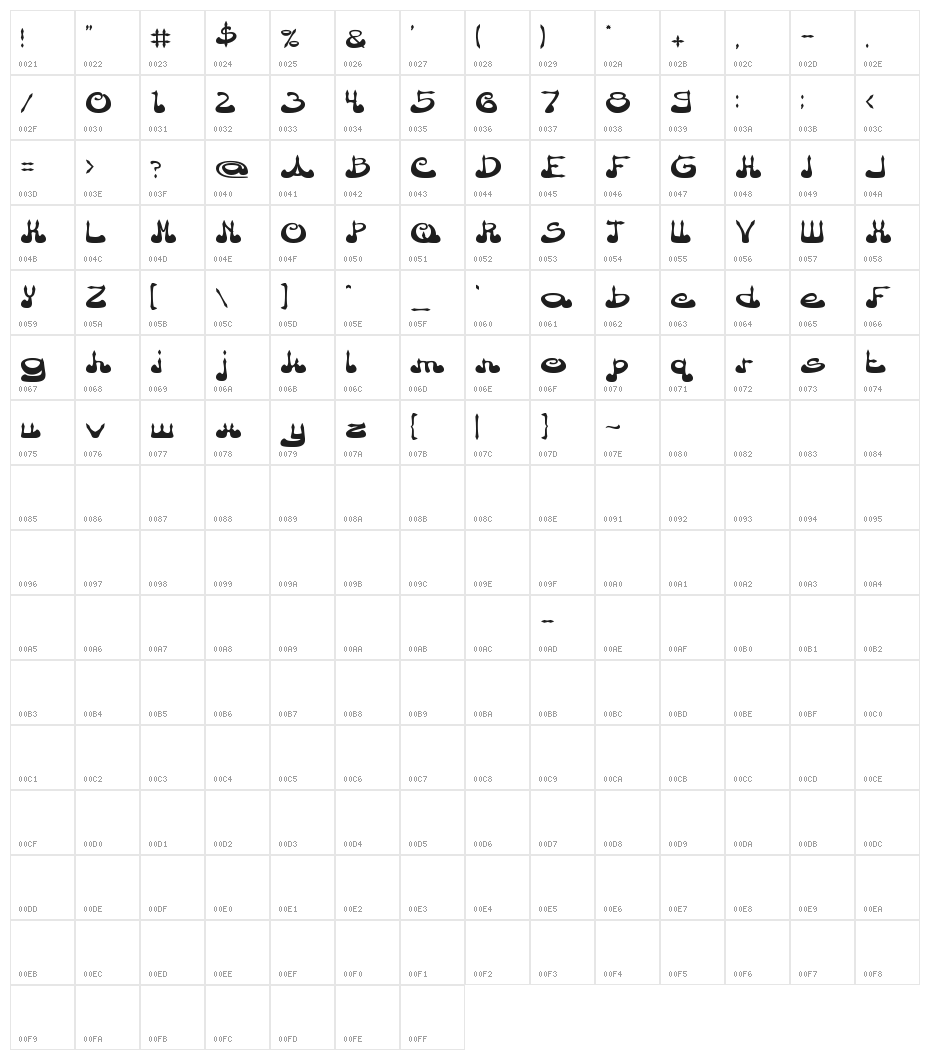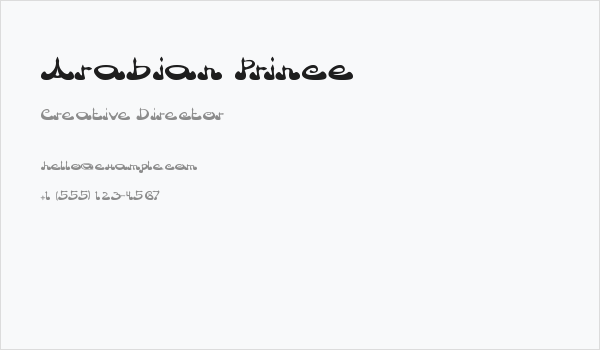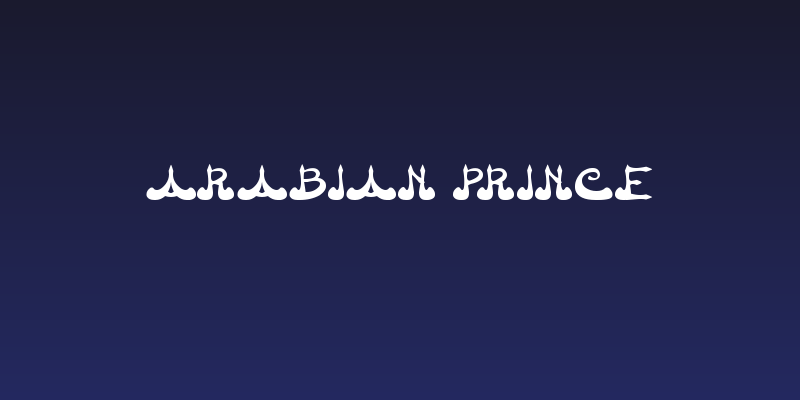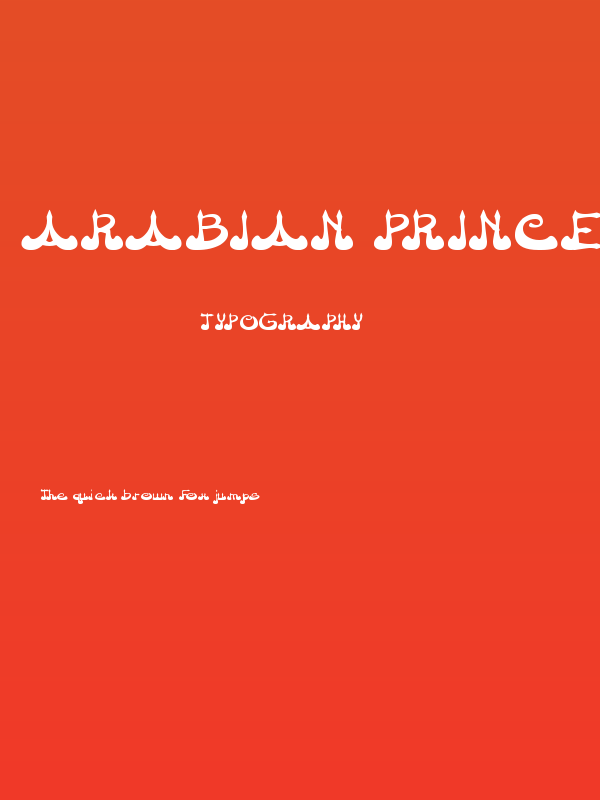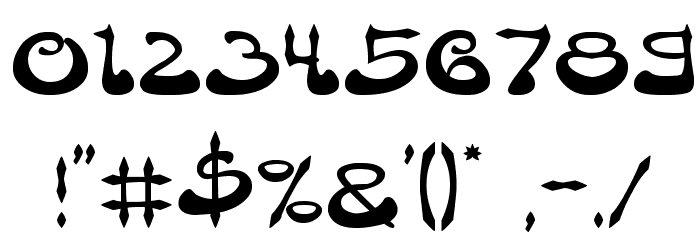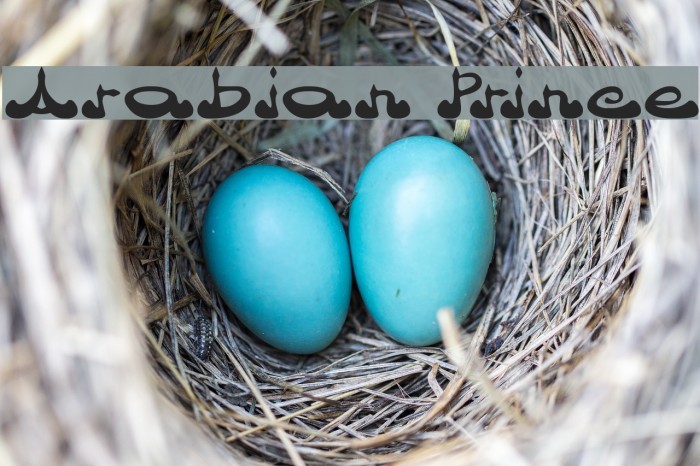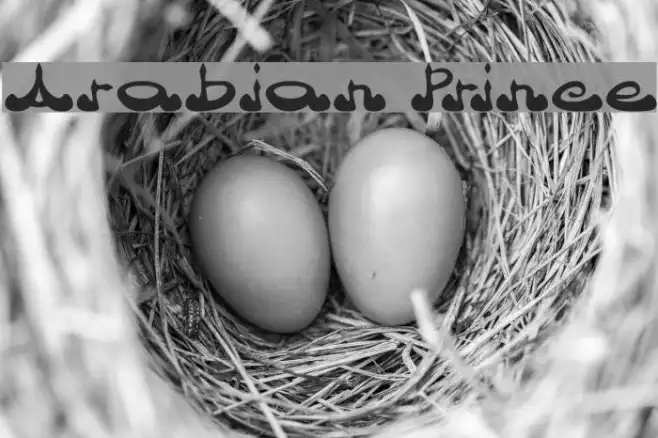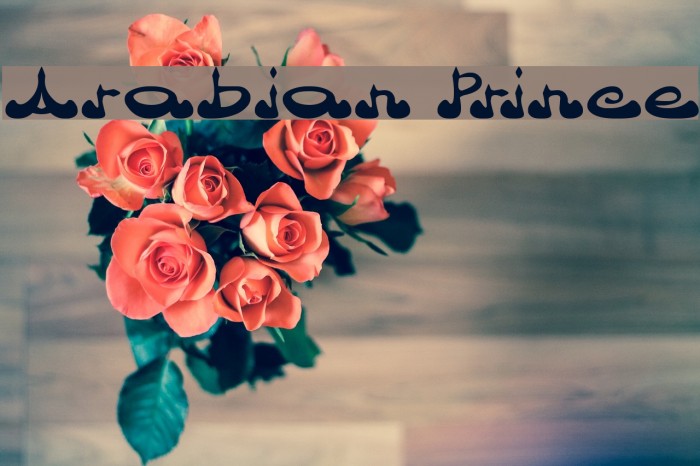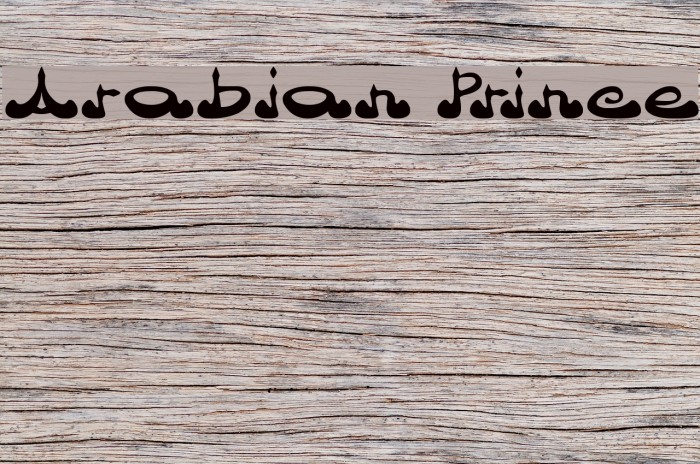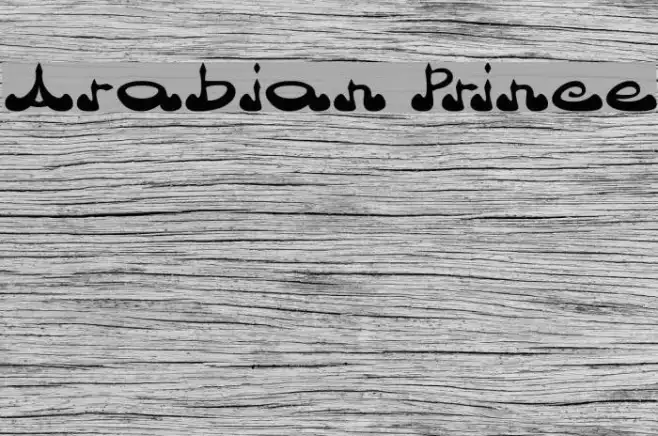
Arabian Prince Font
Arabian Prince Description
This font features a unique and decorative style with bold, flowing curves and a distinctively exotic flair. The characters have a playful, almost whimsical appearance, with exaggerated serifs and rounded edges that give them a lively and dynamic feel. The uppercase letters are particularly striking, with their bold, sweeping lines and intricate details. The lowercase letters maintain the same playful style, with a slightly more compact form. The numerals and special characters are equally bold and decorative, making this font ideal for creating eye-catching designs. Its overall style is reminiscent of traditional Middle Eastern calligraphy, yet it maintains a modern twist, making it suitable for a variety of creative projects.
| Proposed Projects | Ideal for branding, posters, event invitations, and any project requiring a bold, decorative touch. |